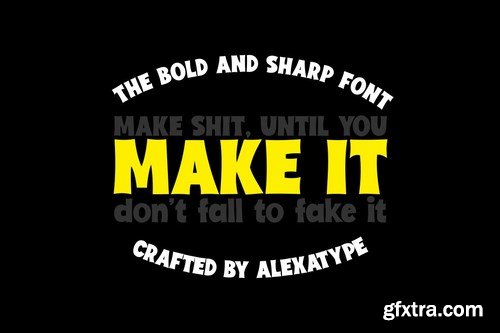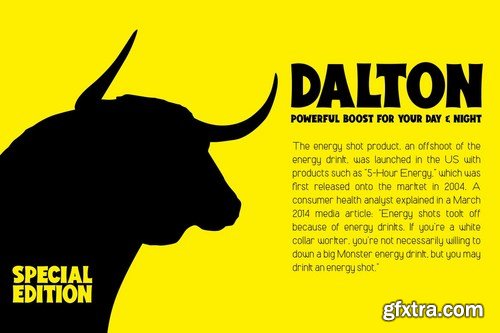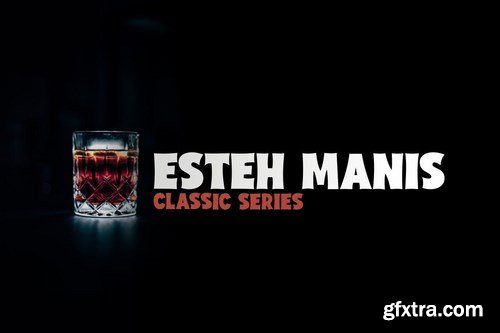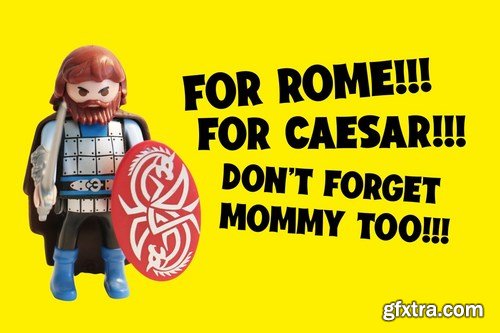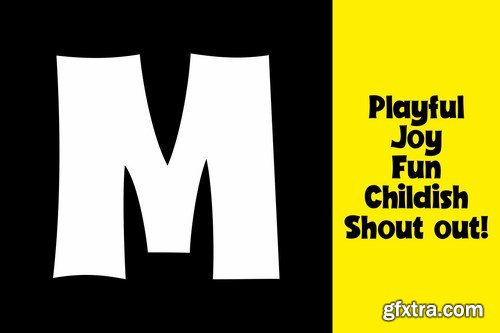
BRONSON, is a playful font but wanted to be taken seriously by others. The curved body and pointy corner, create somewhat strong message, but in a silly way. It's not a victorian font, we never going to be that serious. lighten up a bit will ya. Get Bronson ! It's still suit perfectly for poster, games title, cartoon movie, credit title, magazine, and so on.